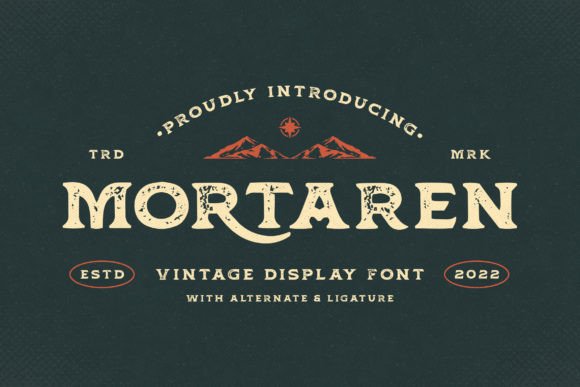
Welcome to the world of Mortaren Font, where classic elegance meets modern versatility. This vintage serif font, crafted by the skilled hands of TypeFactory, is a masterpiece that will add a touch of timelessness to your creative projects.
Step into the realm of visual storytelling with Mortaren Font. Its intricate serifs and flowing curves evoke a sense of nostalgia, transporting you to a bygone era of sophistication and charm. Each letterform is meticulously designed to exude timeless beauty, making this font an ideal choice for logos, headings, and branding.
With Mortaren Font, you can create stunning folder covers that command attention. Its distinctive character and vintage appeal will make your designs stand out from the crowd. Imagine the impact of a presentation folder adorned with the elegant strokes of Mortaren Font - a true testament to your professionalism and attention to detail.
Beyond folder covers, Mortaren Font's versatility shines in various applications. Its timeless charm adds a touch of sophistication to coffee shops and vintage restaurants, creating an ambiance of warmth and nostalgia. Letterheads, signage, and labels adorned with Mortaren Font exude a sense of authenticity and heritage.
Unleash your creativity with Mortaren Font and craft captivating posters and badges that speak to your audience. Its distinct style and vintage charm will elevate your designs, making them memorable and impactful.
Mortaren Font is more than just a font; it's an investment in timeless elegance and versatility. Its wide range of applications and ability to evoke emotions make it an essential tool for any designer seeking to create truly captivating work.
Join the ranks of creative professionals who have embraced Mortaren Font to elevate their designs. Experience the joy of bringing your creative visions to life with this vintage serif font that will leave an unforgettable impression.